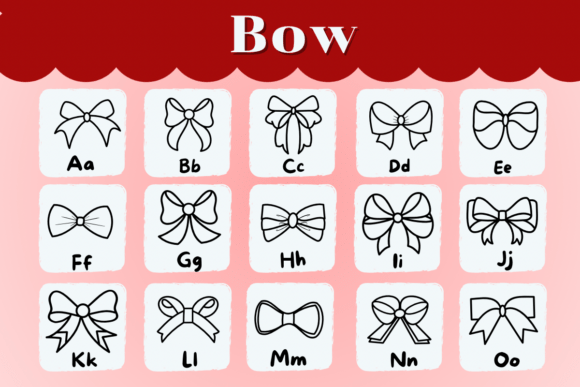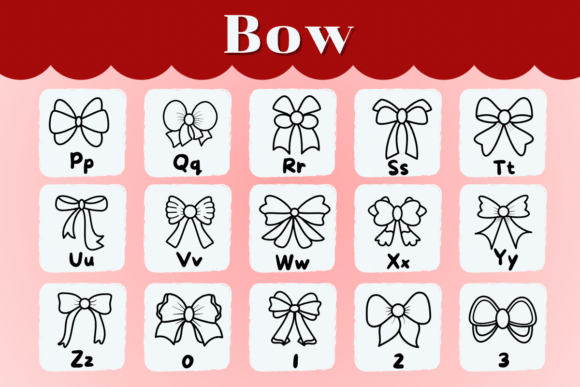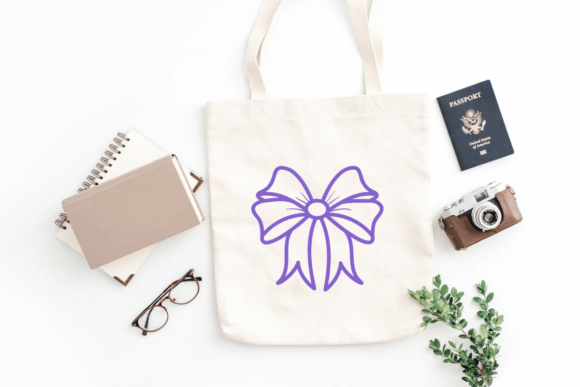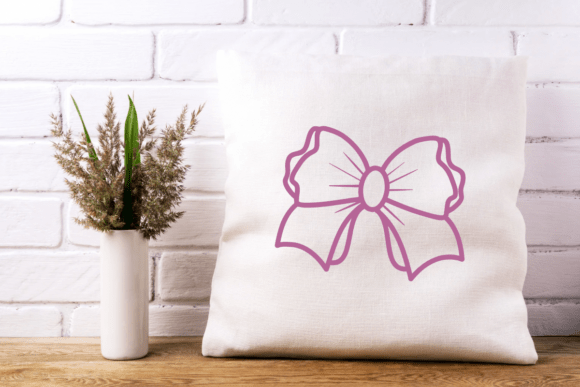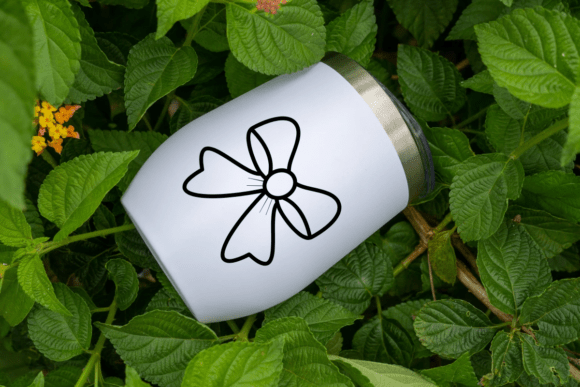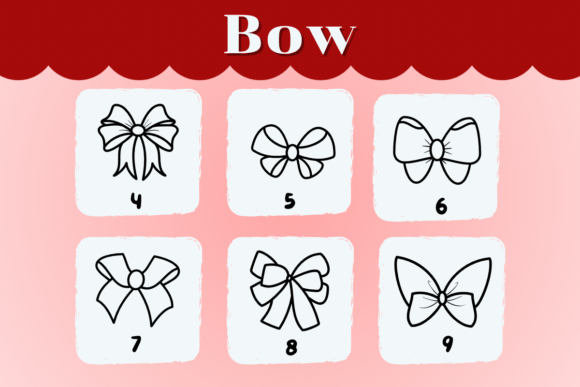
The Sweetest Addition to Your Design Arsenal: Bow Font
I still remember the time I was working on a birthday party invitation for a client’s little girl. I had the perfect design concept, but something was missing. I wanted to add a touch of whimsy and femininity, but my usual go-to fonts just weren’t cutting it. That’s when I stumbled upon the Bow font, and let me tell you, it was love at first sight! 💕
The Bow font is a playful dingbat font that features charming bow illustrations from A to O. Each letter is uniquely designed, making it perfect for adding a sweet, girly, or festive touch to your crafts, scrapbooks, kids’ projects, party invitations, stickers, or digital artwork.
What I Love About Bow Font
- ✨ Unique and playful bow designs for each letter
- ✅ Perfect for adding a touch of whimsy and femininity to your designs
- 🎉 Great for holidays, birthdays, and DIY projects
- 👀 Adorable bow doodles that bring instant charm and creativity
⚠️ One thing to note is that the Bow font is a dingbat font, which means it’s made up of illustrations rather than traditional letters. This can make it a bit more tricky to use, especially if you’re not familiar with glyphs and OpenType features.
🤔 Additionally, the font is limited to uppercase letters, which may be a bit restrictive for some users.
The Designer Inspiration Behind Bow Font
The Bow font was designed with the intention of creating a playful and whimsical font that would add a touch of charm and femininity to any design. The designer, inspired by the beauty of bows and ribbons, created a font that would feature unique and adorable bow illustrations for each letter.
Q: What is the Bow font?
A: The Bow font is a playful dingbat font featuring charming bow illustrations from A to O.